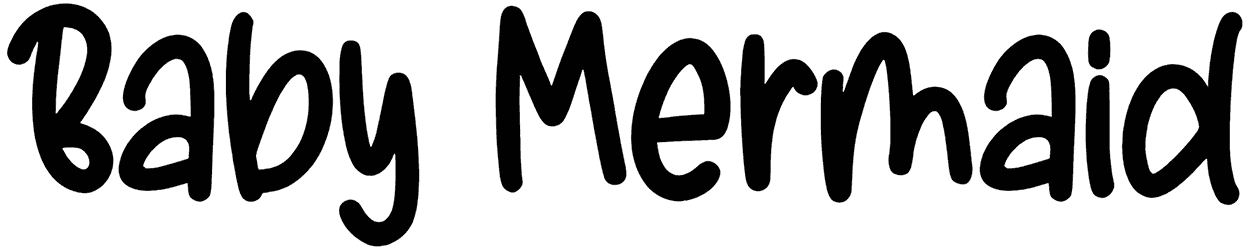
Baby Mermaid Font
Baby Mermaid is a cute baby font that seems to have been written by a child. It is ideal for use in projects that are geared toward children, such as school designs, party invitations, and the covers of children’s published works.